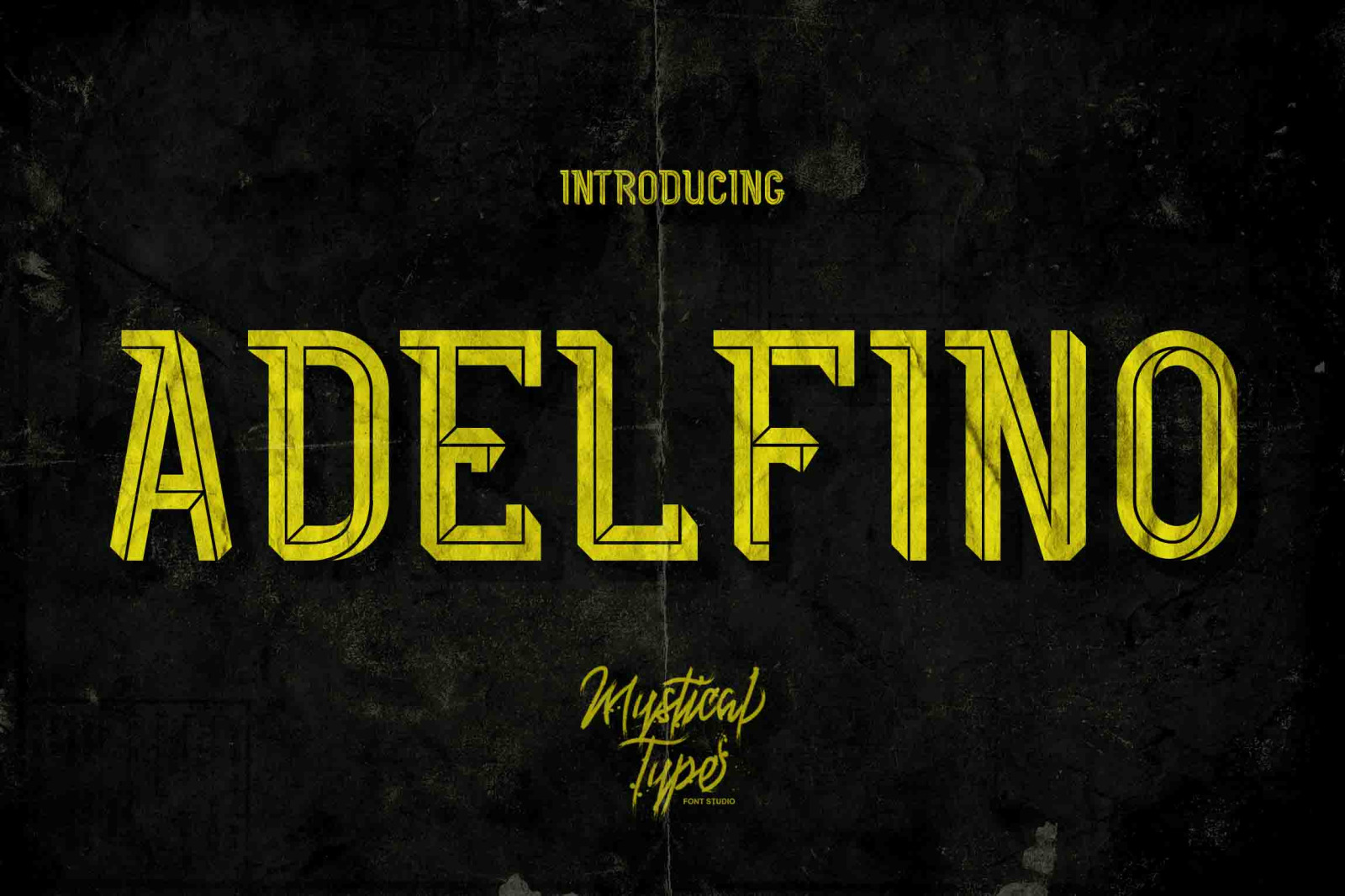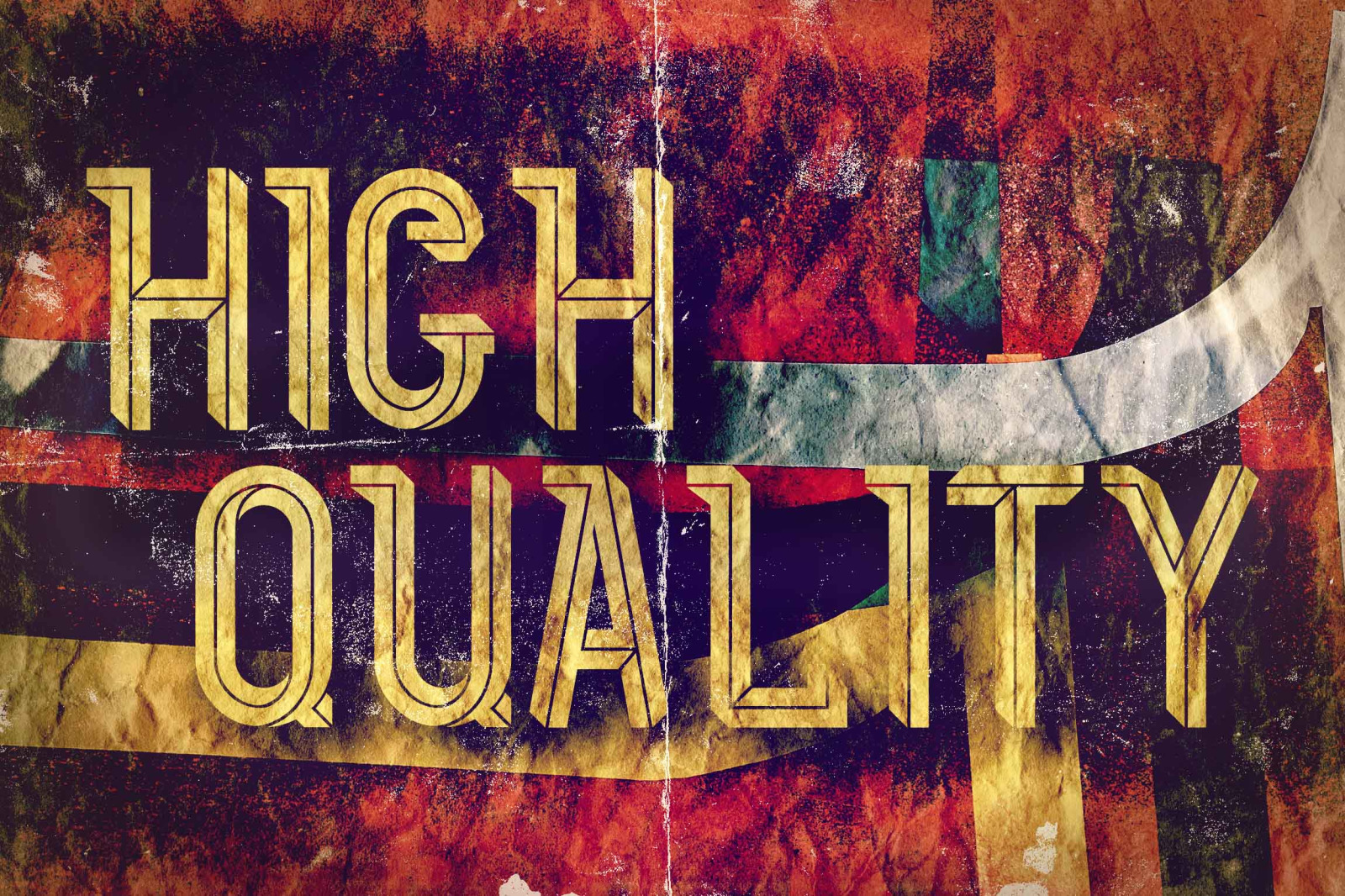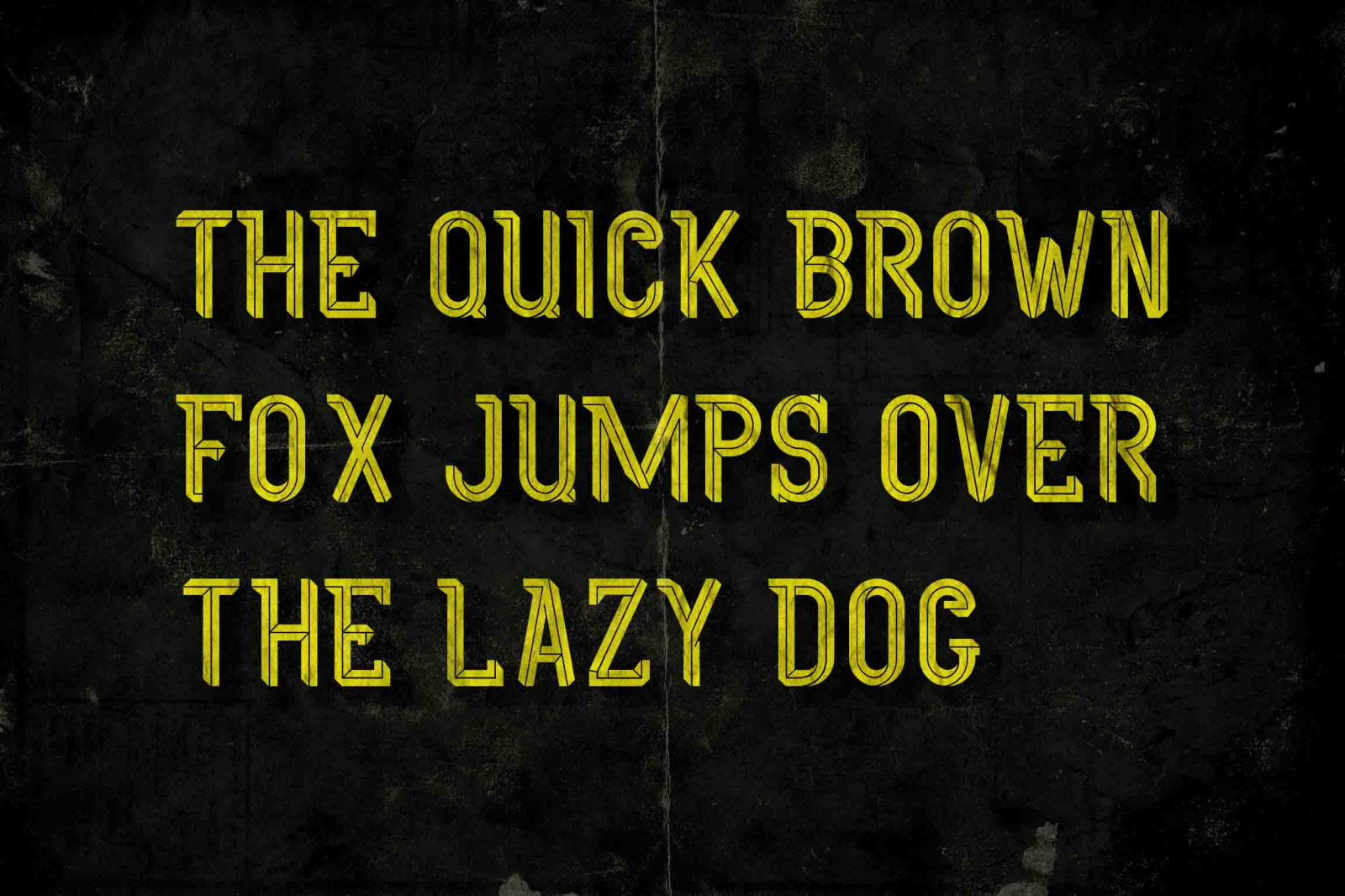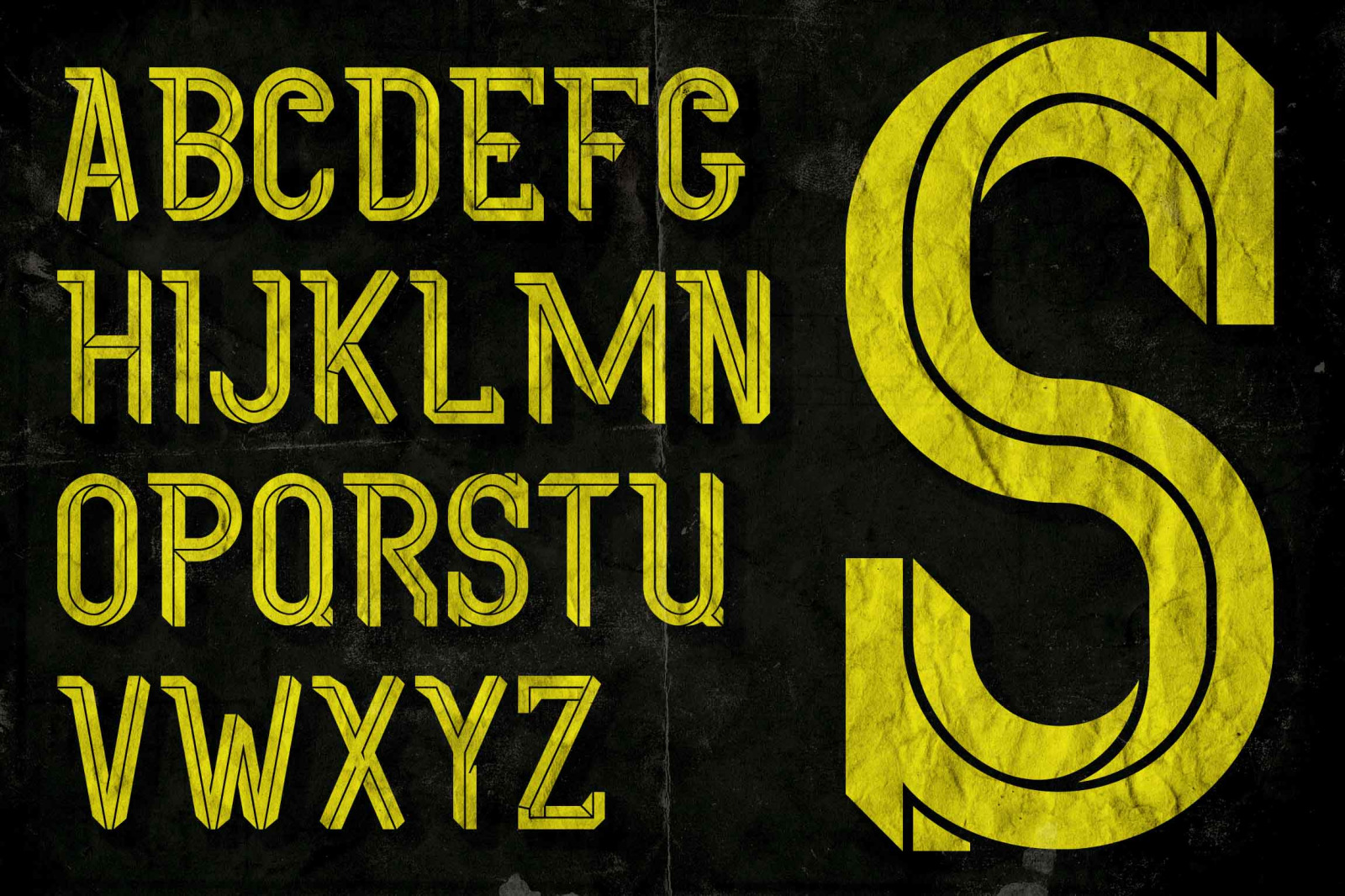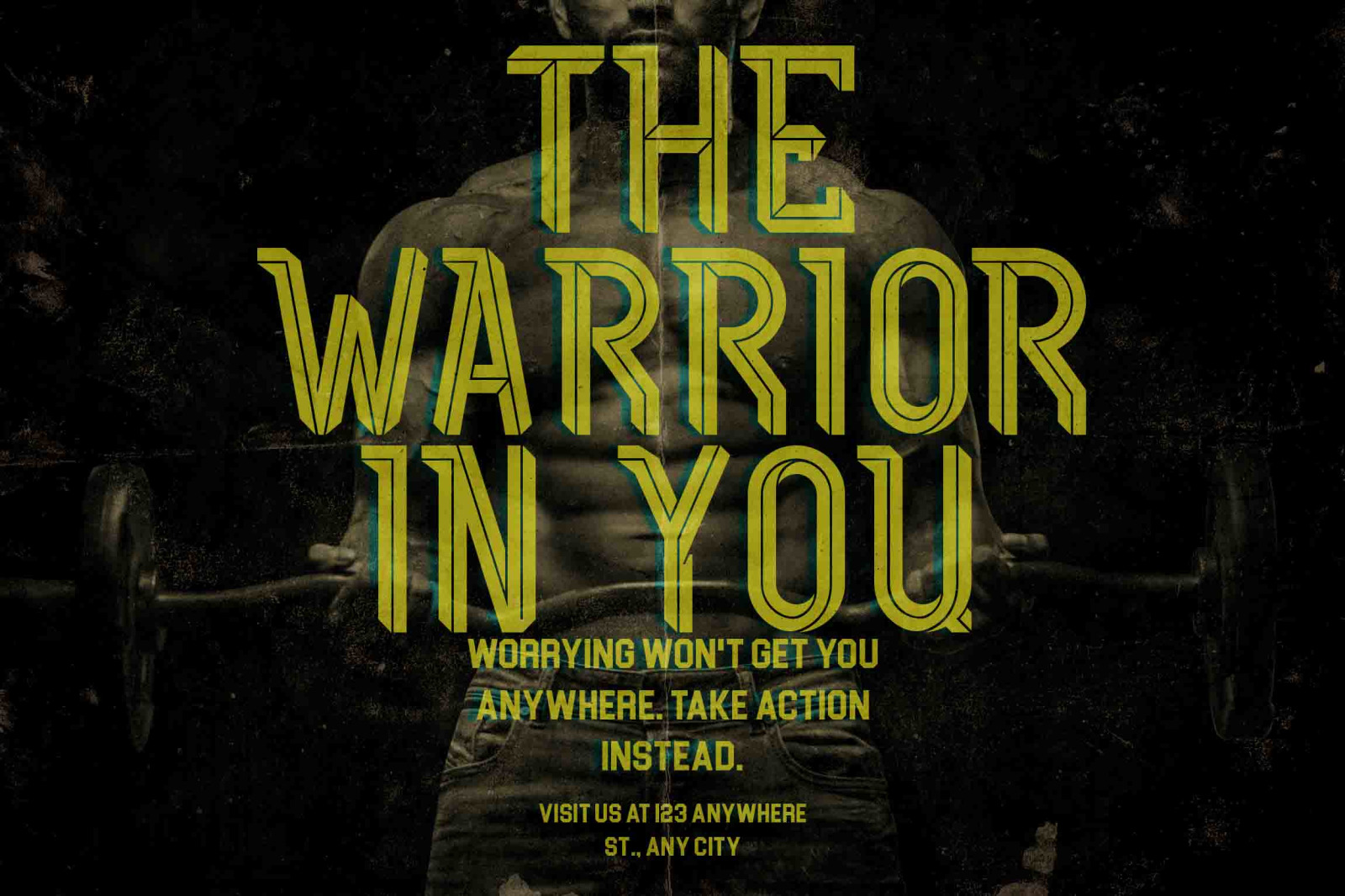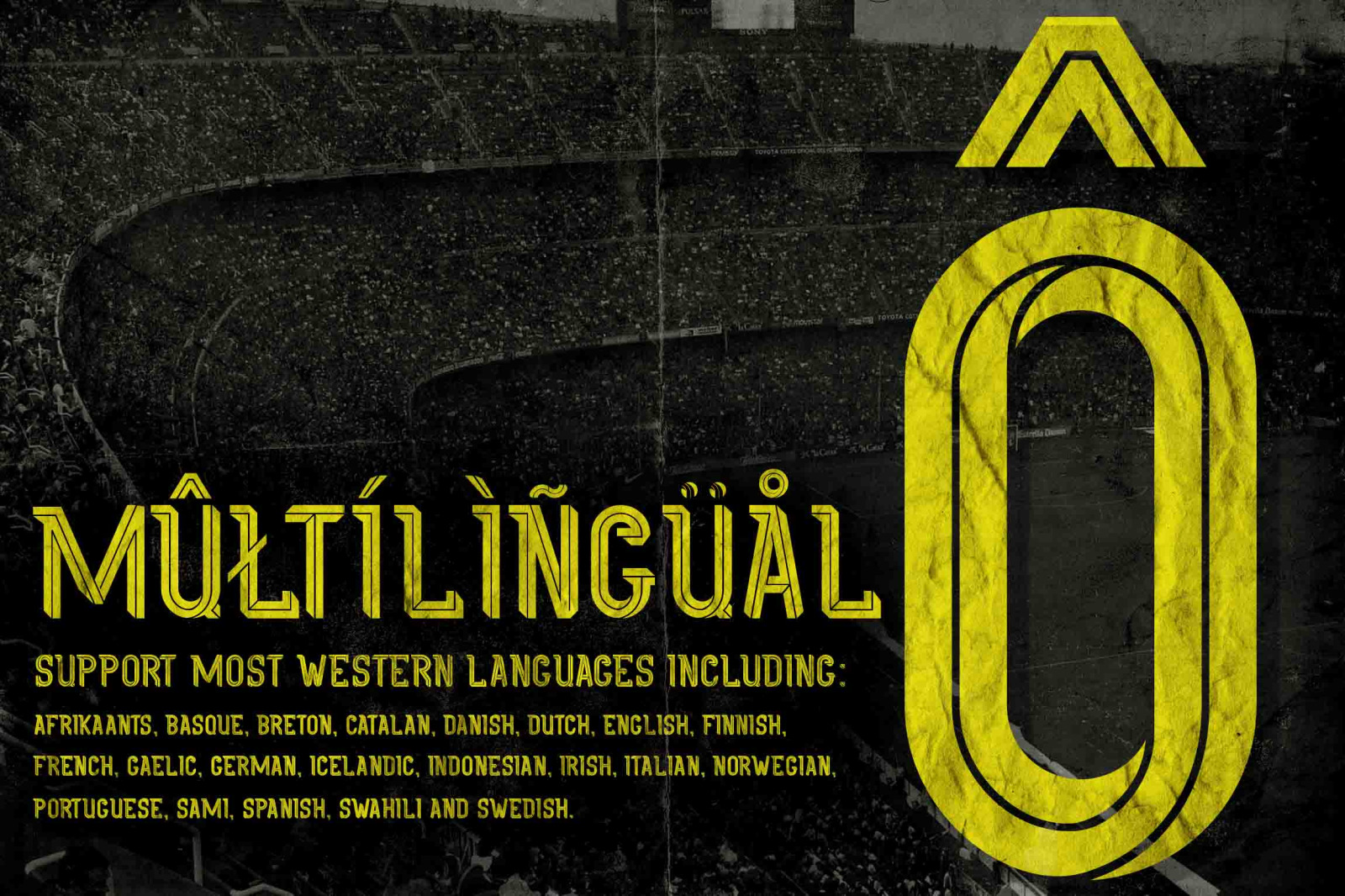
Adelfino Font
This is our newest product, inspired by the Sport style. We call this font “Adelfino”.
Adelfino is perfect for Sport projects, posters, logos, labels, clothing, music album covers, and many others. Comes with a solid and repelling style, you can use this font easily, and save a lot of time in creating.
Adelfino also contains:
- Opentype feature - Basic Latin Language Support (AÀÁÂÃÄÅCÇDÐEÈÉÊËIÌÍÎÏNÑOØÒÓÔÕÖUÙÜÚÛWYÝŸÆßÞþ)